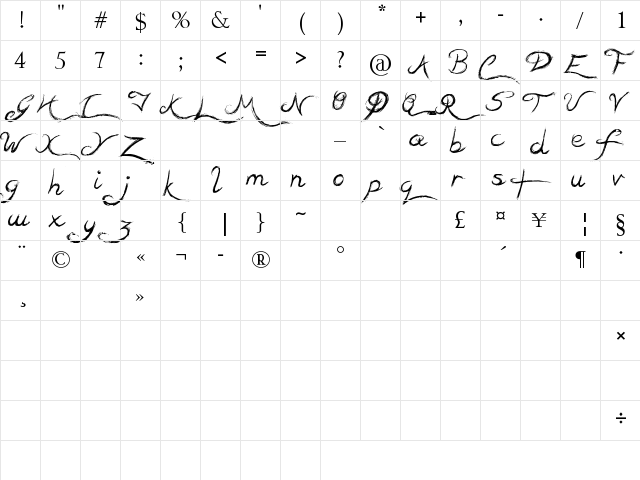
Teaser Houses Regular
Design Context for Teaser Houses Typeface
Teaser Houses is a composed and adaptable typeface that performs quietly and consistently across a wide range of design contexts.